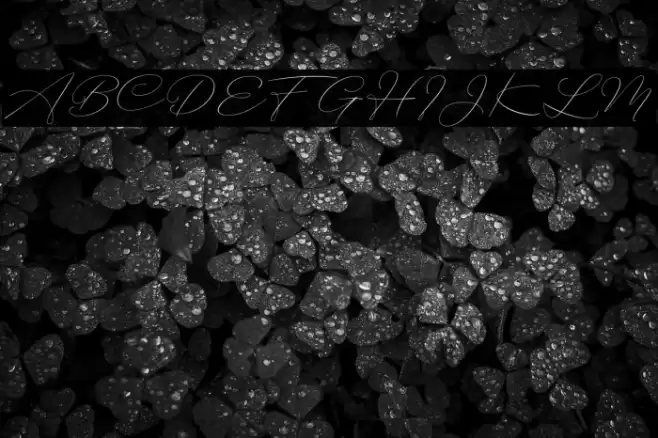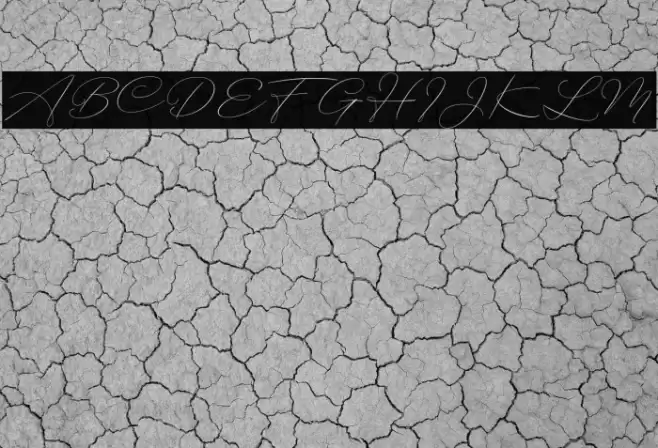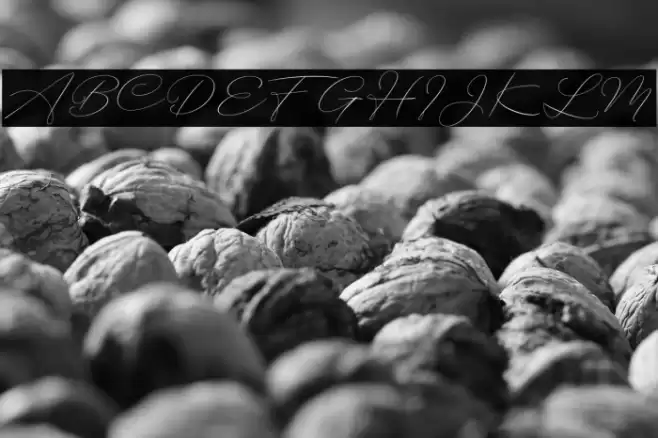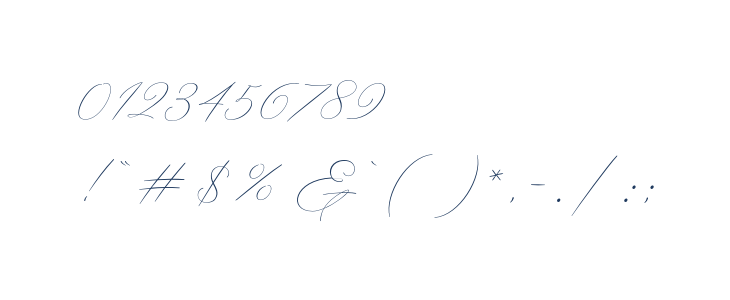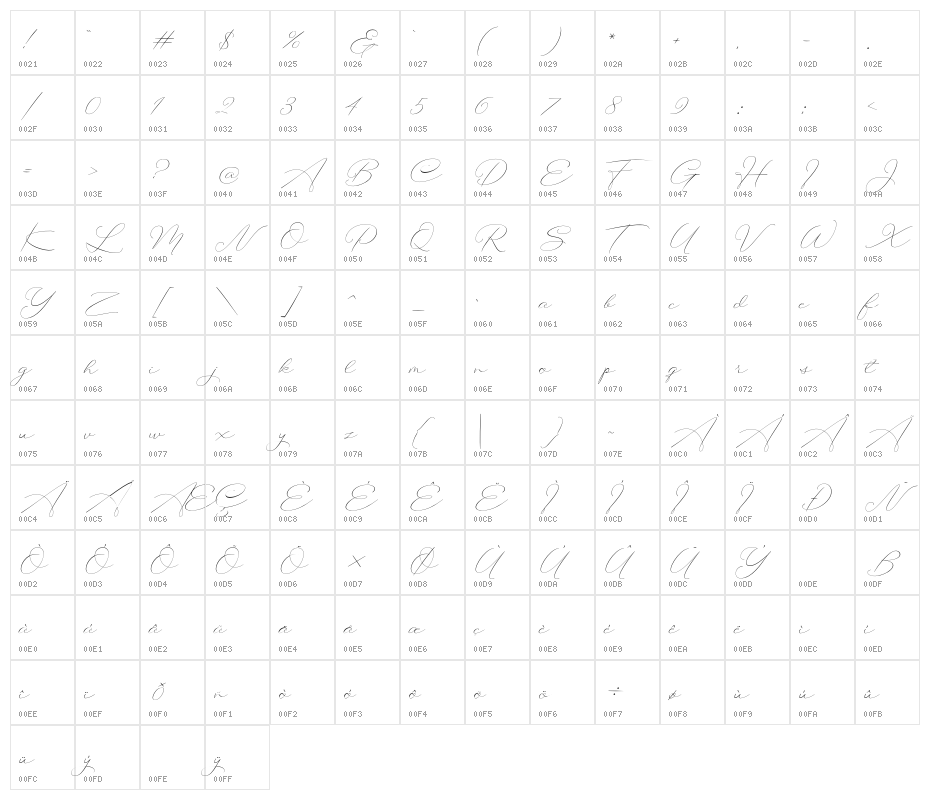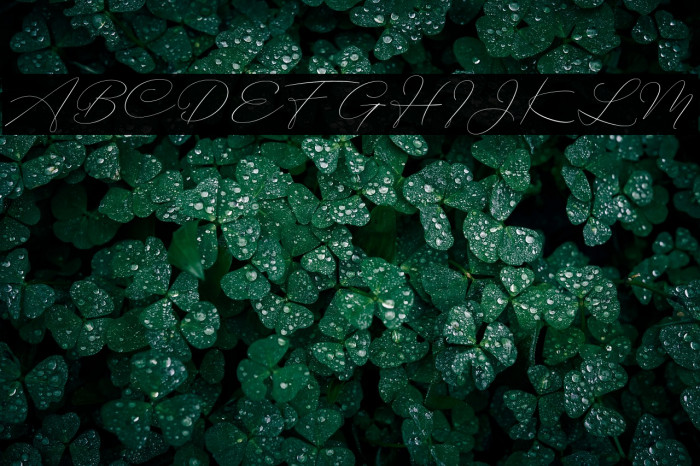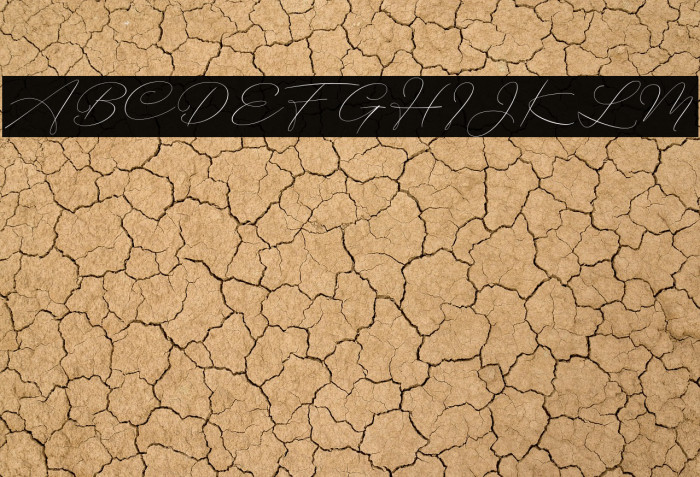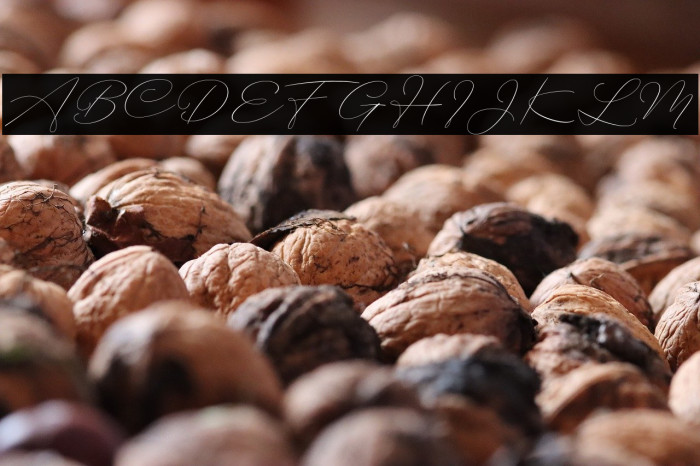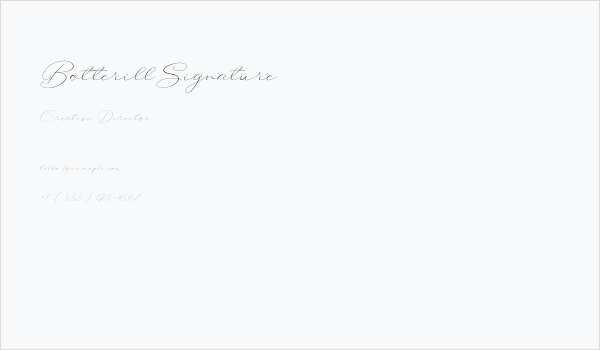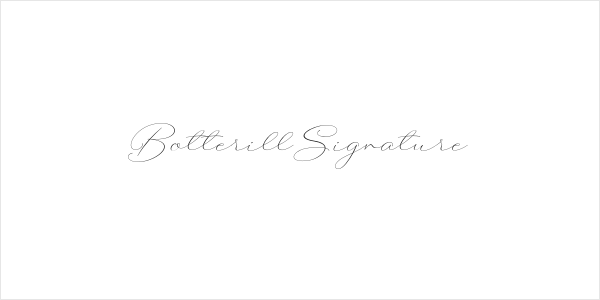
BotterillSignature Font
BotterillSignature Description
This elegant script font features a fluid and graceful style, reminiscent of traditional cursive handwriting. The characters are connected with smooth, flowing lines, creating a sense of continuity and movement. The uppercase letters are slightly more ornate, with subtle flourishes that add a touch of sophistication. The lowercase letters maintain a consistent height, contributing to the font's readability. The numerals are designed to match the overall aesthetic, with a delicate and refined appearance. Special characters are included, complementing the font's cohesive look. This font exudes a sense of elegance and is perfect for projects that require a personal, handwritten touch.
An elegant, flowing script font with a handwritten style from Uncategorized fonts.
- Font: BotterillSignature
- Proposed Projects: Ideal for wedding invitations, personal branding, greeting cards, and elegant stationery.
- Overall Style: Elegant, Handwritten
- Use Case: Logos, Invitations, Personal Branding